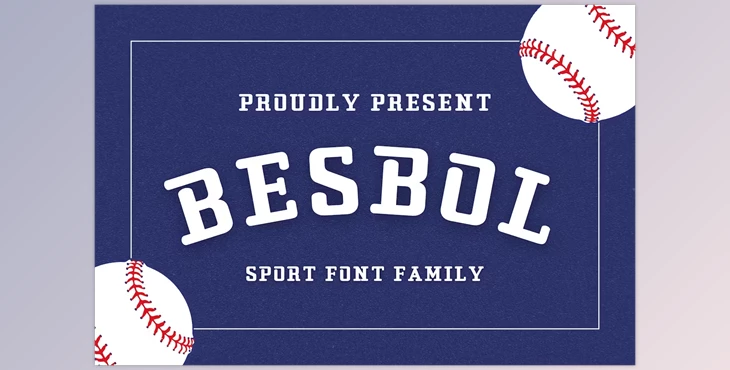
Besbol Display Font Family:
Introducing BESBOL, a premium display font tailored for sports logos. Crafted to deliver dynamic and impactful designs, BESBOL is your go-to choice for athletic branding.